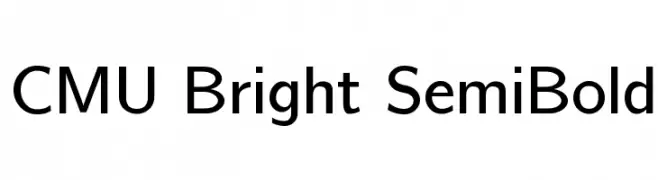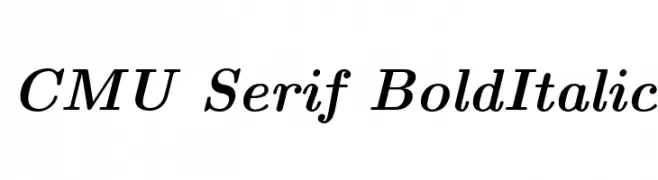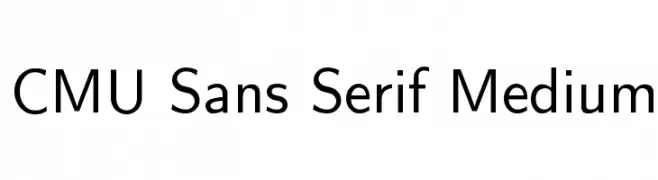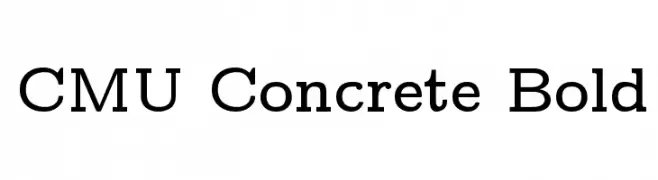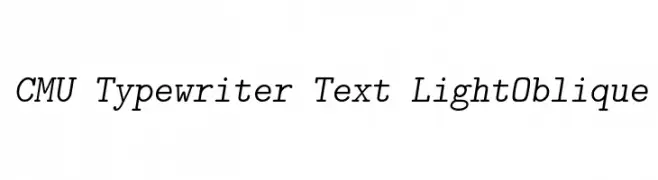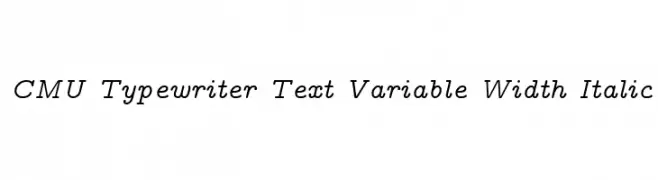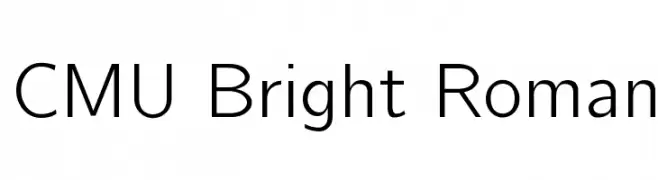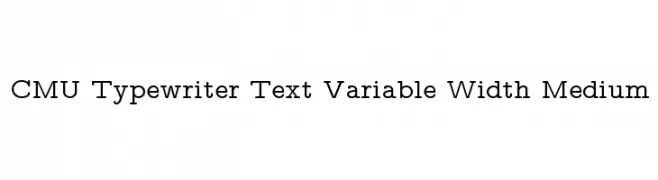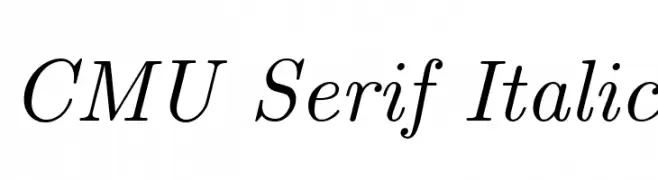
A clean, modern semi-bold typeface with excellent readability and balance.
A classic serif italic font with moderate contrast and elegant style.
A bold, italic serif font with a classic and elegant style.
A clean, modern sans-serif font with medium weight and balanced proportions.
A bold serif typeface with strong serifs and consistent stroke width, offering a classic yet modern appeal.
A light oblique typewriter-style font with monospaced characters.
A modern italic typewriter-style font with variable width and a classic yet dynamic appearance.
A clean, modern typeface with balanced spacing and high readability.
A classic typewriter-style font with medium weight and variable width.
An elegant serif italic typeface with a classic and sophisticated style.